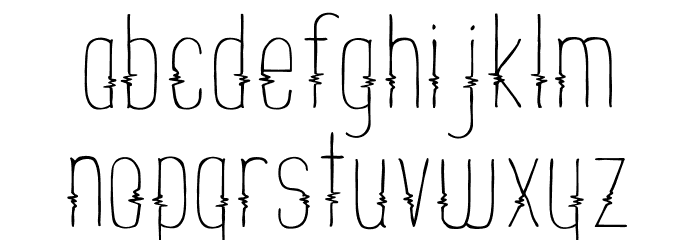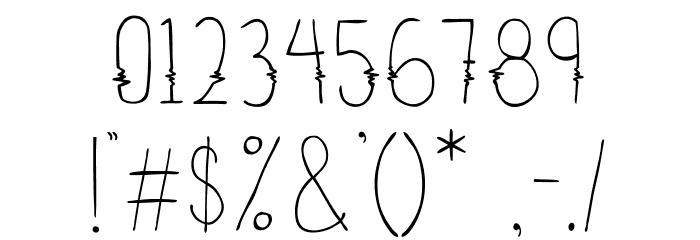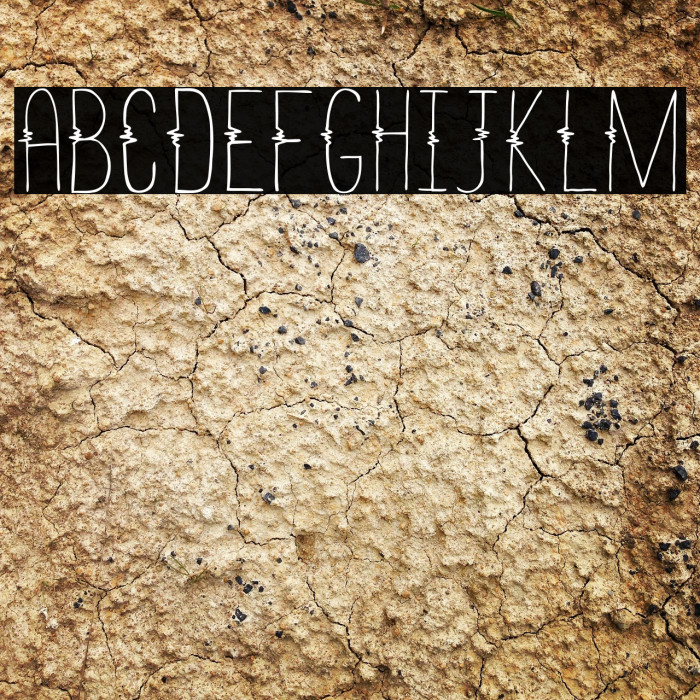
NADC_soundbeat Font
This font features a unique and edgy design, characterized by its thin, elongated letterforms that incorporate barbed wire elements. The strokes are consistent in width, giving it a modern and minimalist appearance. The uppercase and lowercase letters maintain a cohesive style, with the barbed wire motif subtly integrated into each character. Numbers and special characters follow the same design principles, ensuring uniformity across all glyphs. This font stands out with its distinctive and unconventional aesthetic, making it suitable for creative and bold design projects.
A thin, modern font with barbed wire elements for an edgy look.
- Proposed Projects: Ideal for music album covers, edgy branding, posters, and event promotions.